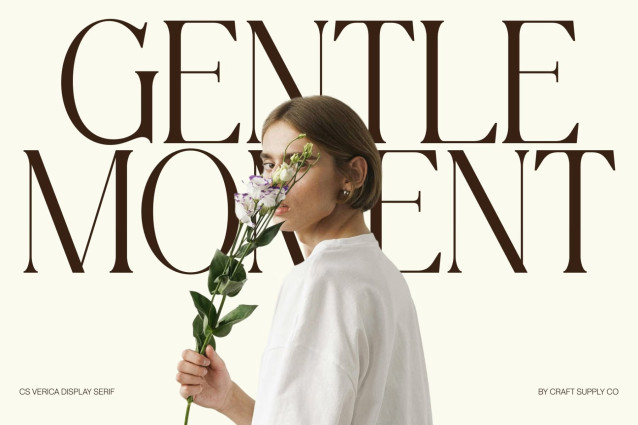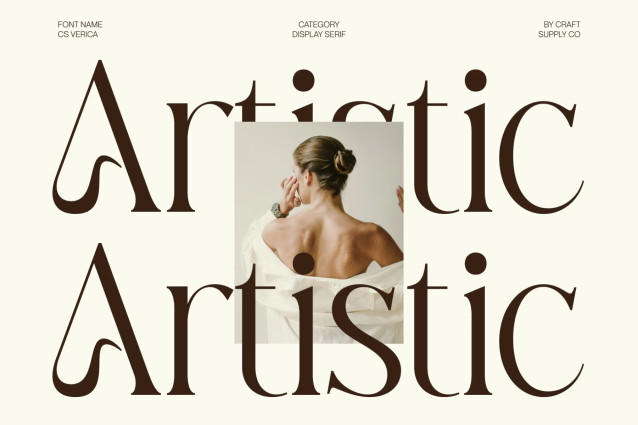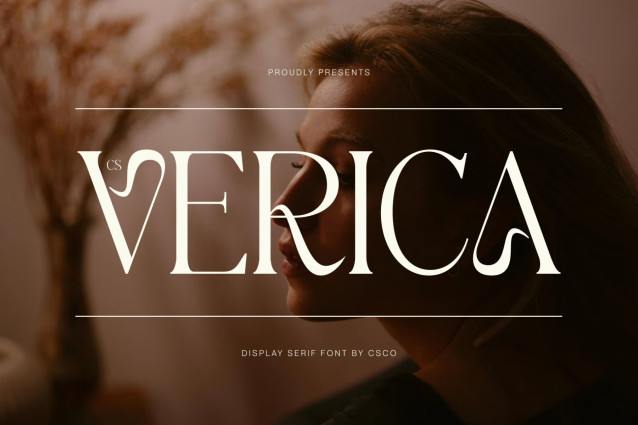
CS Verica – Elegant Serif Font
CS Verica – Elegant Serif with Modern Luxury Appeal
Elegant Serif with Refined Style
This is an elegant serif font that embodies a refined sense of style and timeless luxury. Its graceful letterforms are crafted to deliver sophistication and balance, creating typography that feels polished and visually captivating. The design blends classic serif foundations with modern sensibility, resulting in a font that feels both fresh and enduring.
Modern Design with Fresh Character
With its clean structure and carefully shaped curves, this font offers a modern interpretation of traditional serif typography. The refined details enhance readability while maintaining a stylish, contemporary personality. This balance gives the font a confident and upscale presence suitable for premium visual communication.
Luxury Feel with Versatile Elegance
This font communicates luxury through subtle elegance rather than excessive ornamentation. Its refined proportions allow it to adapt easily across various creative contexts, delivering a high-end tone that feels approachable and versatile. The font works beautifully in both minimalist and expressive layouts.